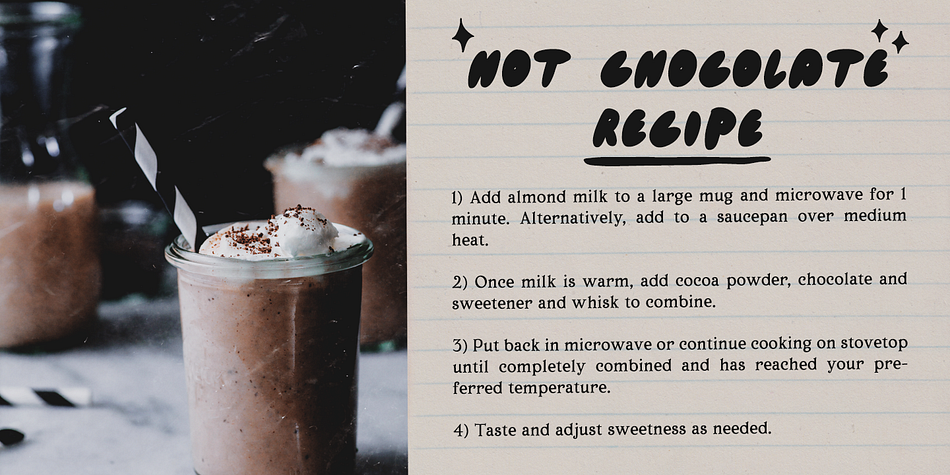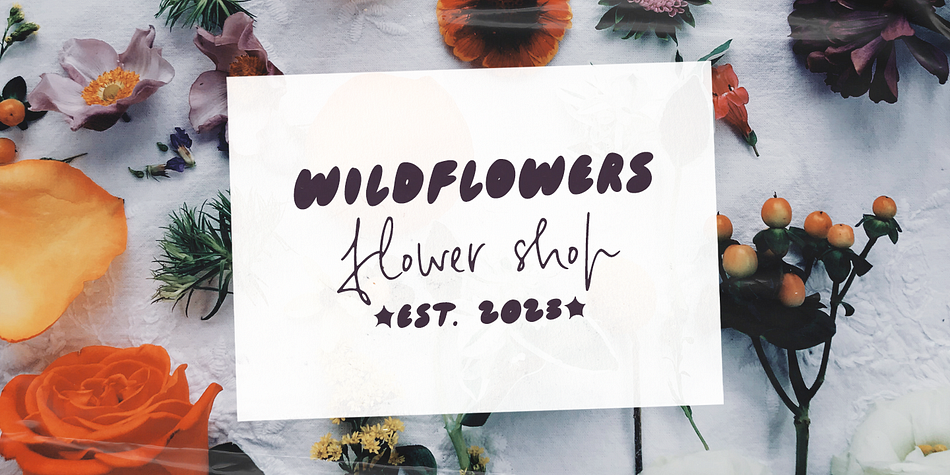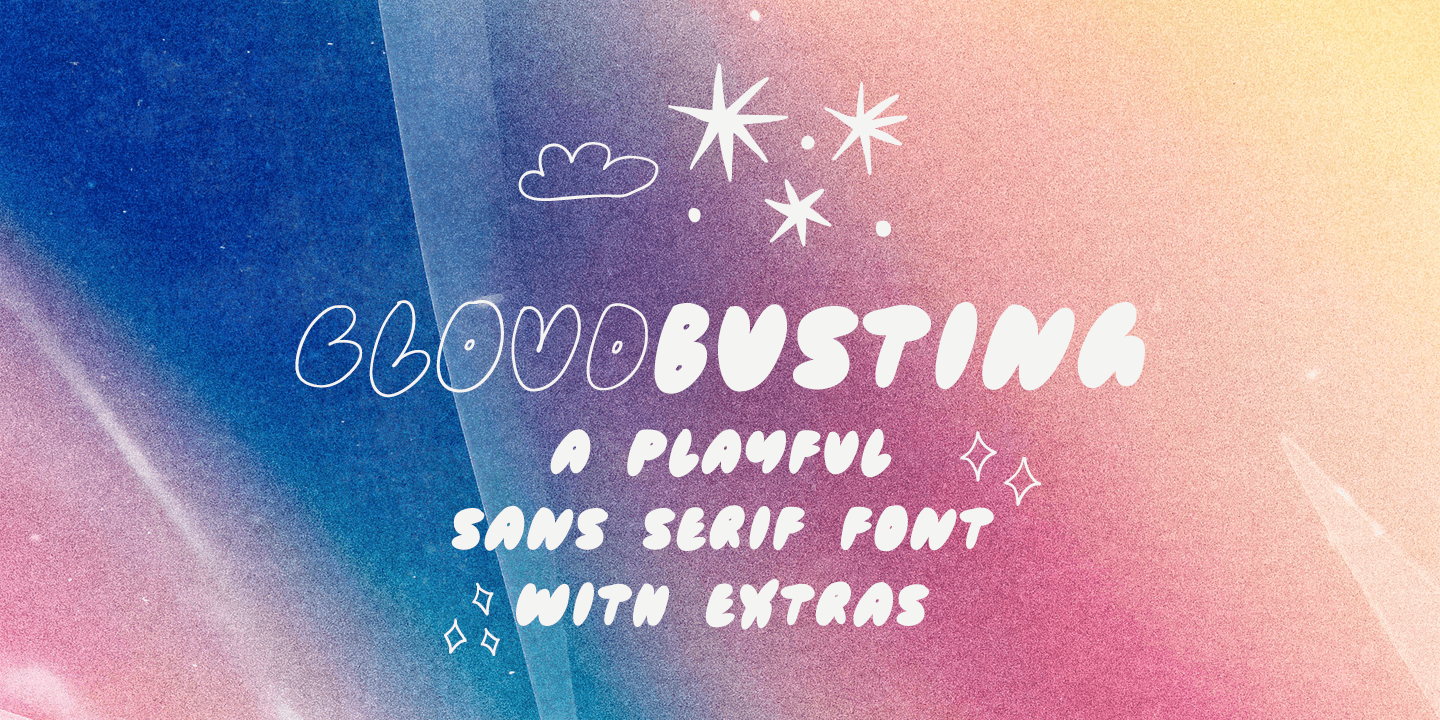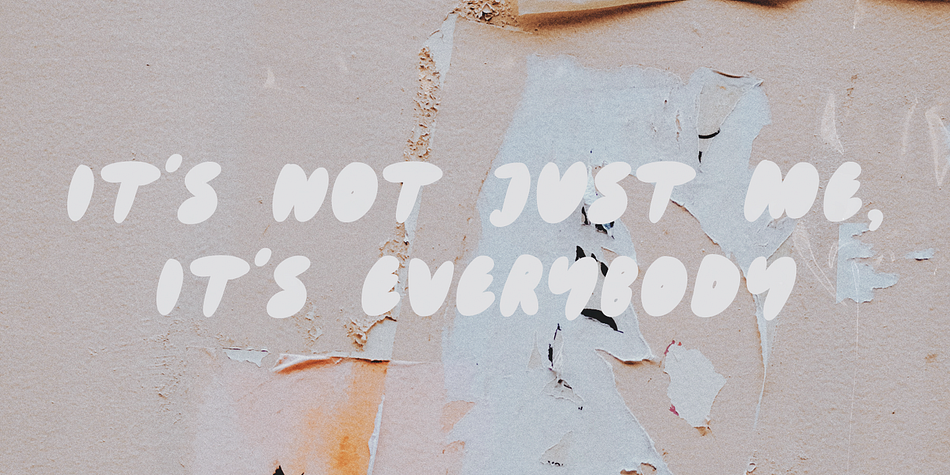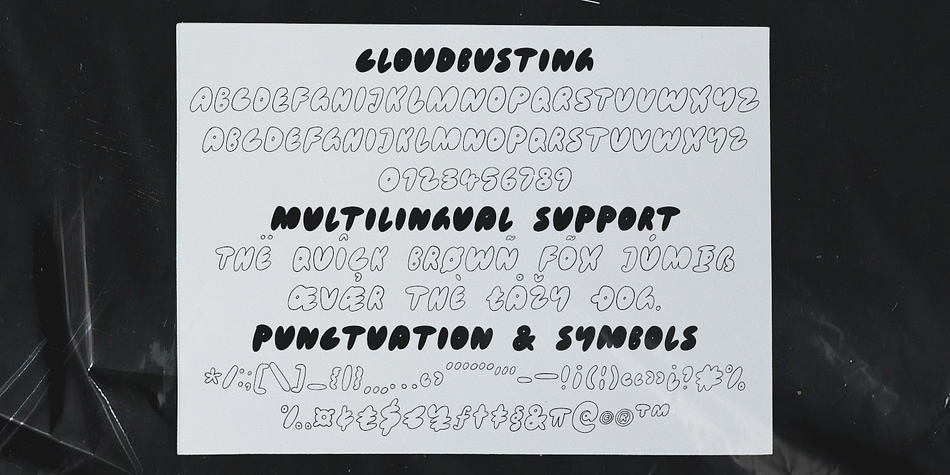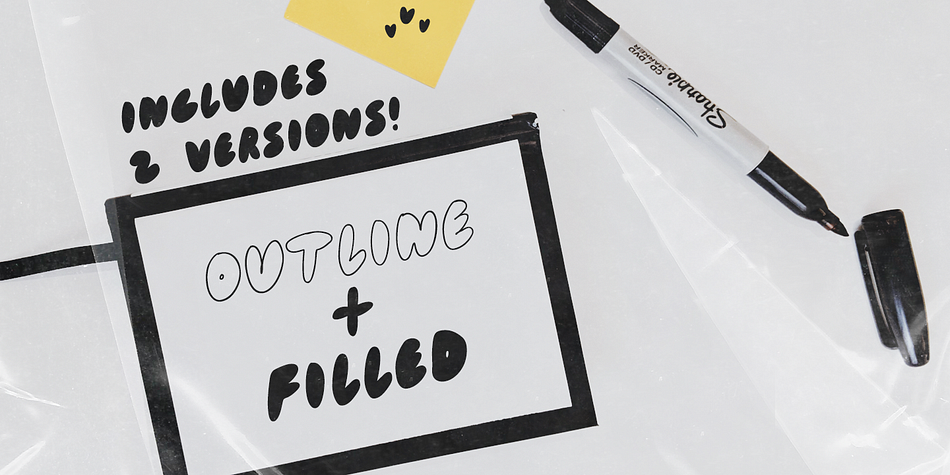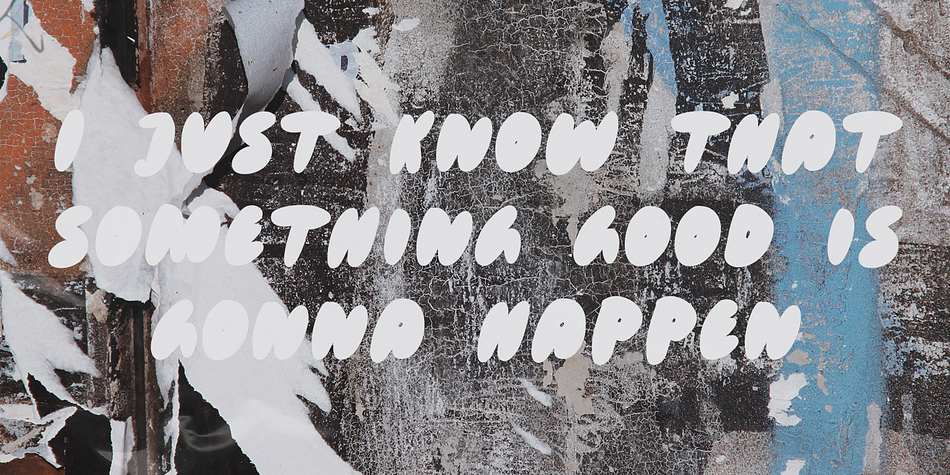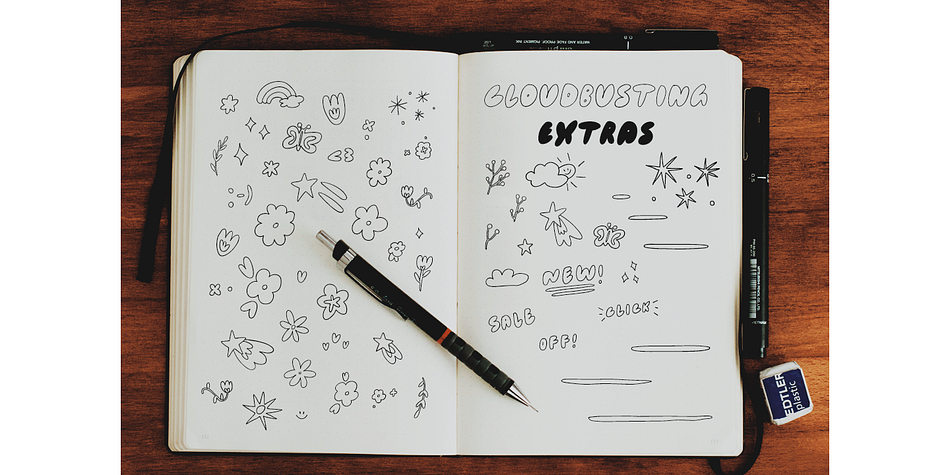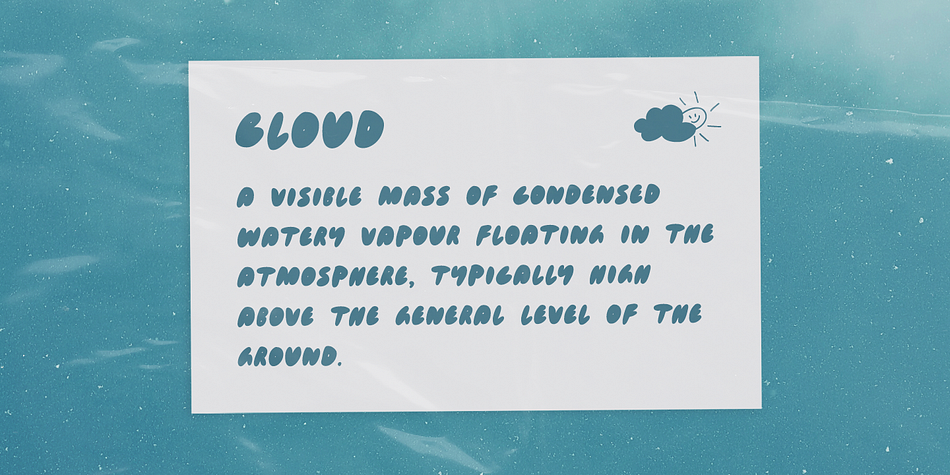
Cloudbusting
Designed by Ana Parracho, Cloudbusting is a comic, display sans and dingbat font family. This typeface has six styles and was published by Ana's Fonts.
Cloudbusting is a playful sans serif font with a bubble letters look, lots of variations and an extra set of drawings. Perfect for any design that needs a bold font, such as logotypes, quotes and social media posts, website and magazine layouts, and poster designs.
Cloudbusting includes:
- An outline font
- A filled font
- A set of 62 outline drawings
- A set of 62 filled drawings
Cloudbusting is an all caps font, with two versions for each letter, which makes it fun to use in animations and designs with a handmade look.